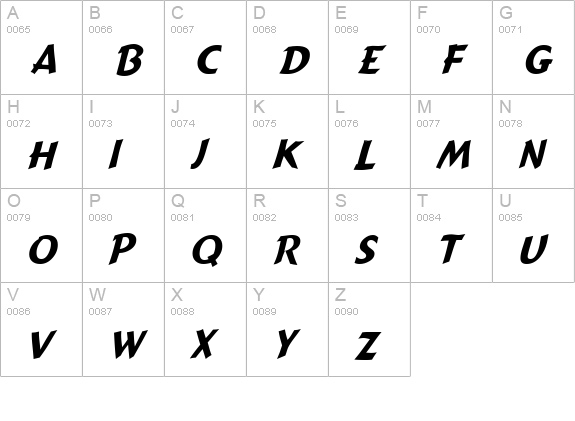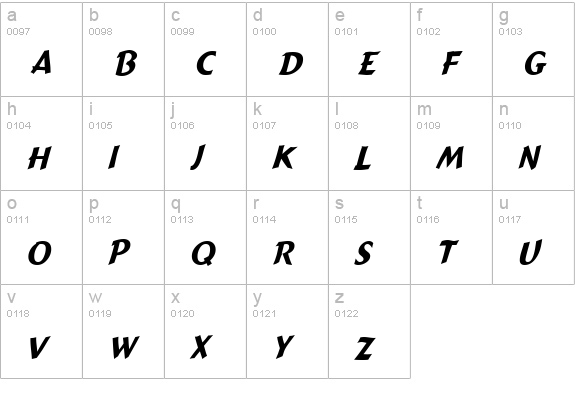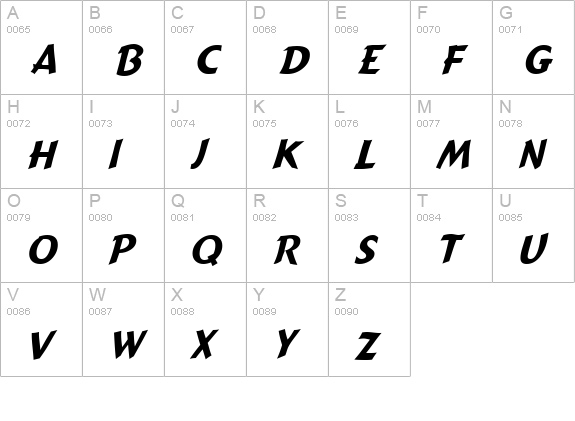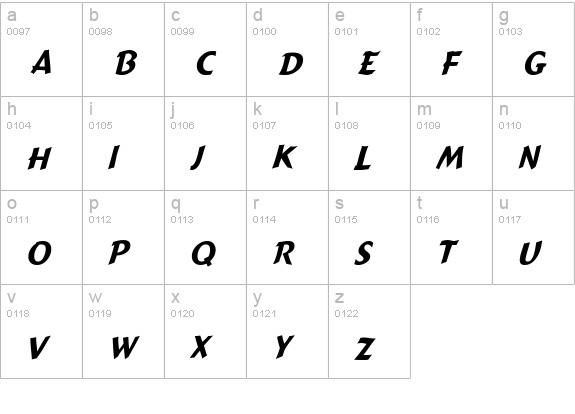
GremlinCaps Italic Font Details
GremlinCaps Italic is a distinctive, italic variant in the GremlinCaps typeface family \xE2\x80\x94 well suited to design and typography projects.
Introducing GremlinCaps Italic font, a whimsical and playful typeface that is sure to add a touch of charm to your designs. This font features unique, quirky letterforms with a slanted italic style that brings a sense of movement and energy to your text. GremlinCaps Italic is a versatile font that can be used for a variety of design projects, from branding to packaging to invitations. Its distinctive characters make it perfect for creating eye-catching headlines and titles that stand out. Best of all, GremlinCaps Italic is completely free to download at FontsMarket.com. This means you can easily add this fun and lively font to your collection without having to spend a penny. Don't miss out on the opportunity to enhance your designs with this delightful typeface. Download GremlinCaps Italic today and let your creativity soar!